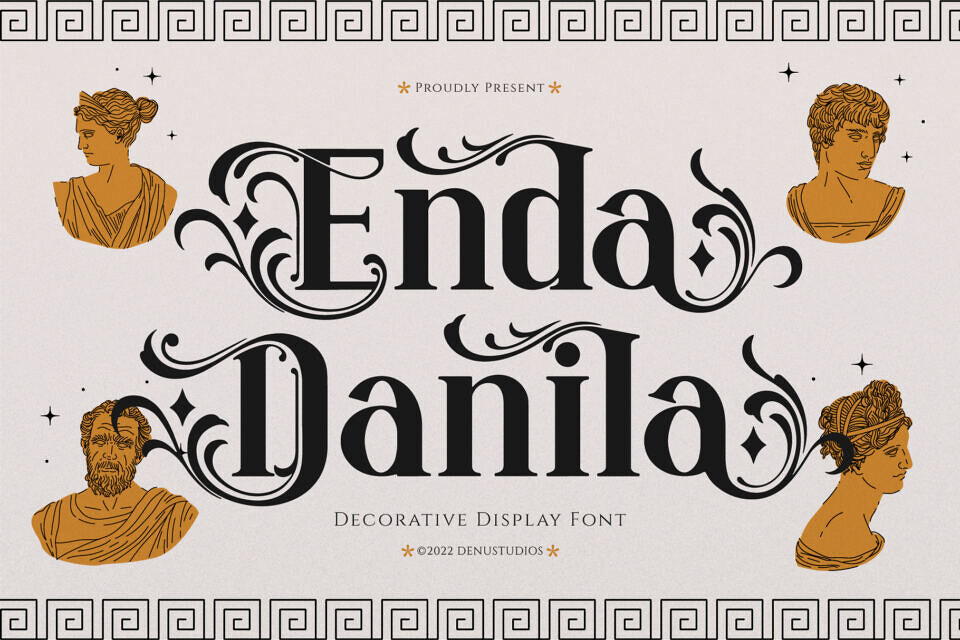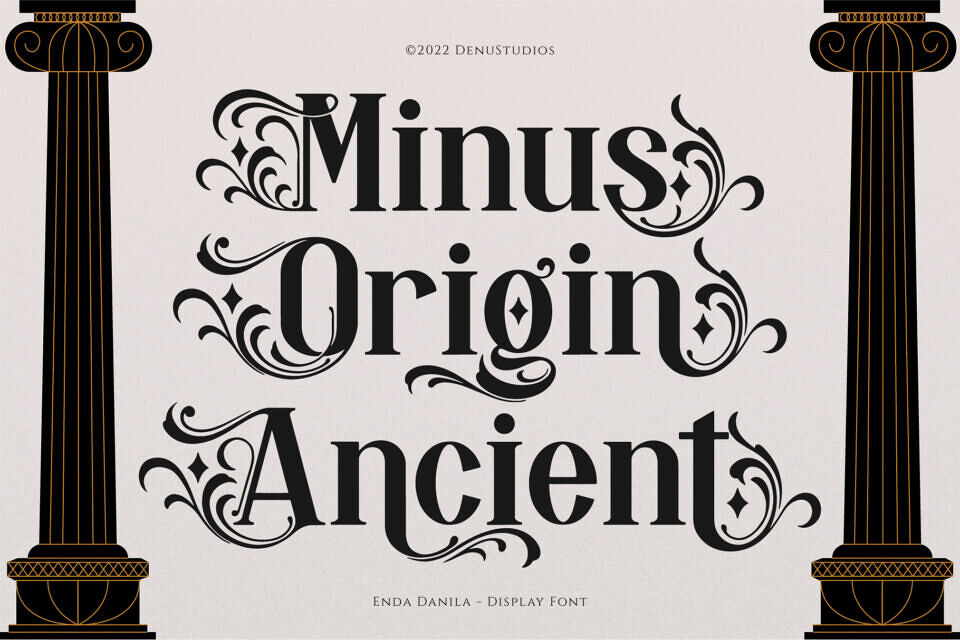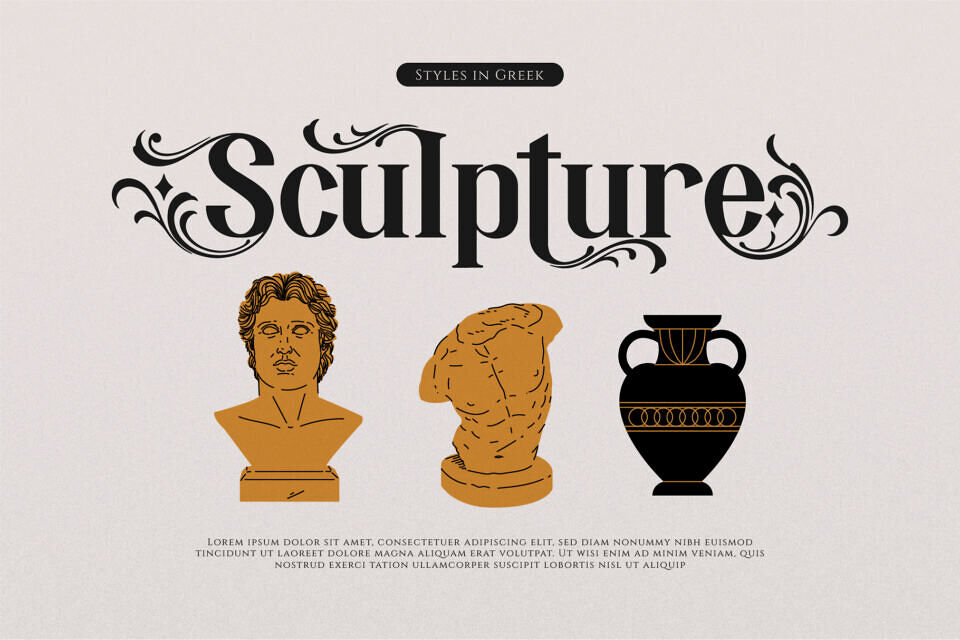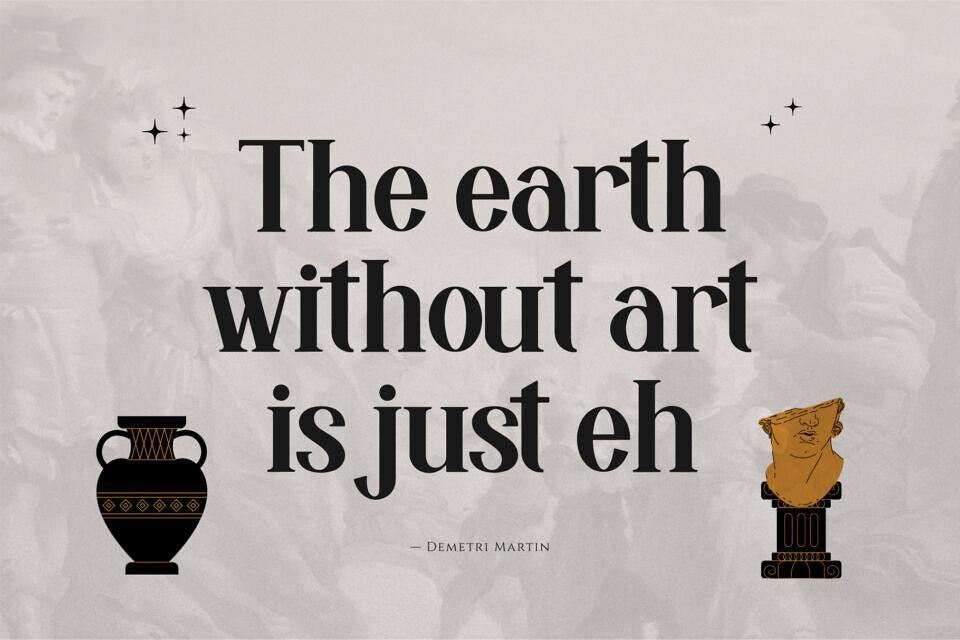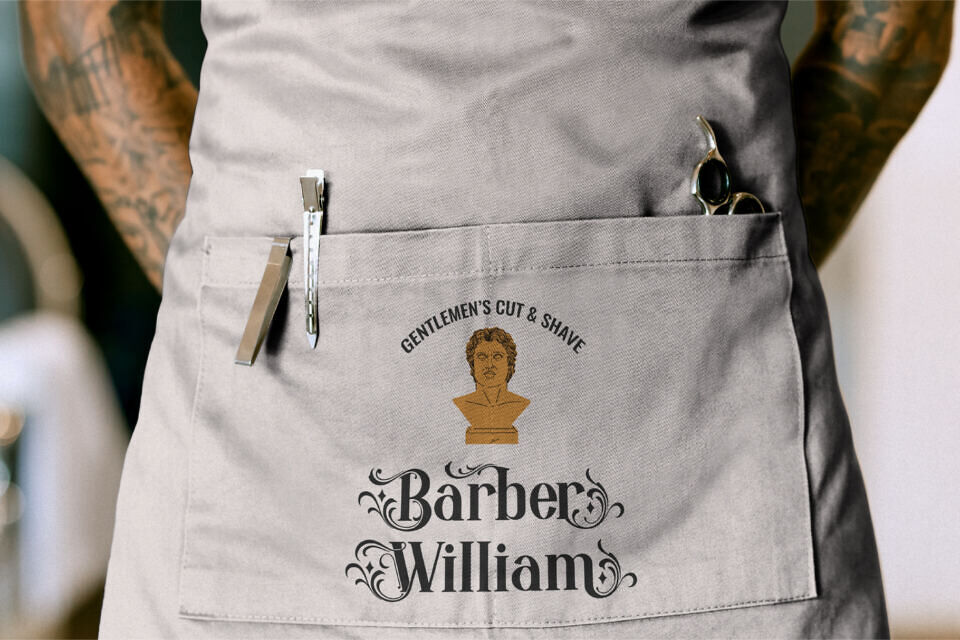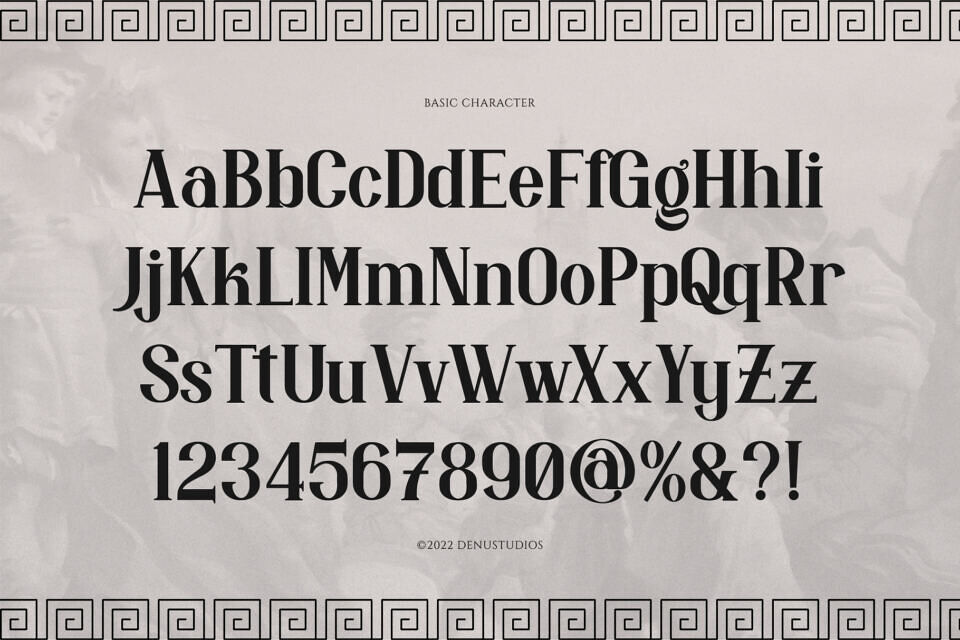
Experience the grandeur of classical myth and theater with Enda Danila, a stunning decorative font. It combines traditional Roman proportions with Baroque elegance, featuring intricate scrollwork, swashes, and diamond accents that evoke ancient luxury. The font’s majestic style is perfect for storytelling, transporting you to a world of opulence and drama.
Enda Danila serves as an extraordinary branding choice for premium dark-academia book covers, luxury perfume packaging, artisanal wine and liqueur labels, vintage fashion lookbooks, historic tarot card decks, and high-impact cinematic movie titles.